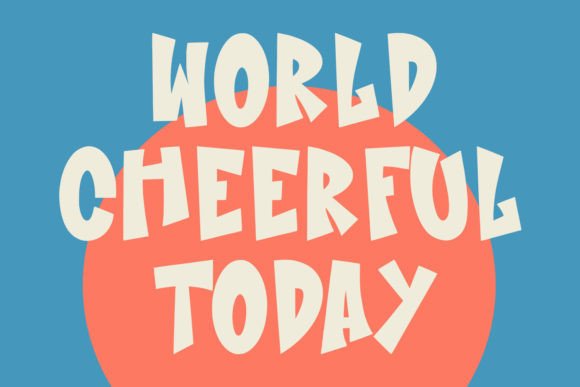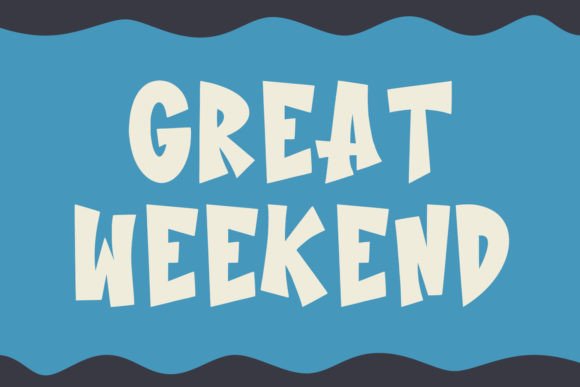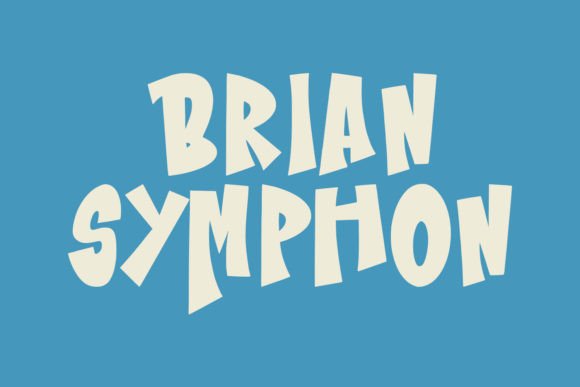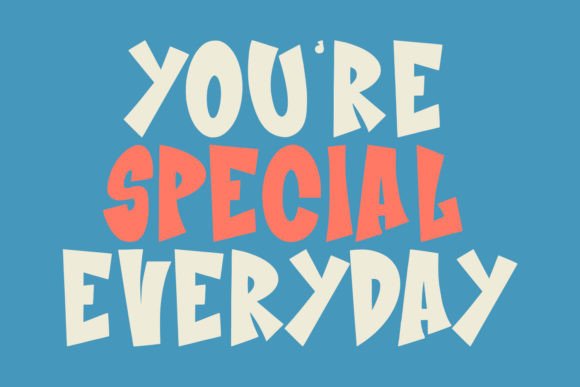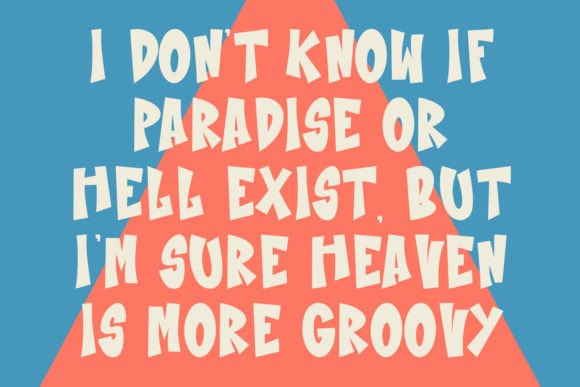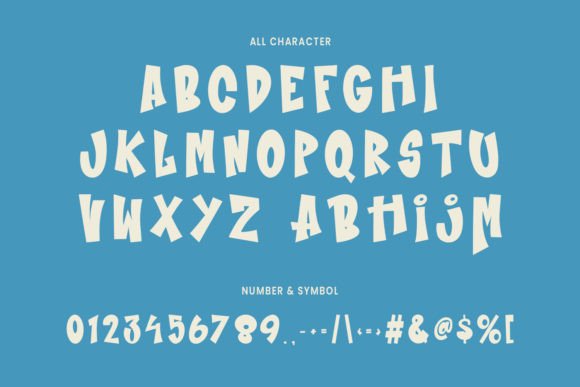
Have you ever been stuck trying to come up with the perfect font for a project, only to find yourself scrolling through page after page of options? You finally land on one that catches your eye, but it just doesn’t quite feel right. That’s where the Cluchy Font comes in – a playful display font designed to add a touch of fun and personality to your work.
This versatile font is perfect for a wide range of projects, from logo design to social media posts, movie titles, and even book titles. With its heavy stroke and fun character, the Cluchy Font is sure to make your work stand out. Plus, with support for over 100 languages, you can use it for projects that require a multilingual approach. Whether you’re a seasoned designer or just starting out, the Cluchy Font is a valuable tool to have in your arsenal.
Clutchy Font Key Features
- Font Family: Clutchy Font is a sans-serif font family designed for digital use. It comes in 6 weights (Thin, Light, Regular, Medium, Bold, and Black) and 3 widths (Compressed, Normal, and Extended).
- Character Set: The font supports a wide range of languages, including Latin, Cyrillic, and Greek alphabets, as well as many non-Latin scripts.
- Unique Characteristics: Clutchy Font features a unique blend of geometric and organic shapes, resulting in a distinctive and modern aesthetic. Its carefully crafted letterforms ensure optimal legibility and readability.
Designer Review: Clutchy Font
Overall, I’d say the Clutchy font has a lot going for it. The ✨ personality is spot on, with a quirky and playful vibe that’s sure to grab attention. The font’s use of geometric shapes and rounded edges gives it a friendly, approachable feel that’s perfect for casual projects or brands that want to appear more approachable.
- ✨ The font’s unique personality and character make it a great choice for adding some visual interest to a design.
- ✨ Clutchy is highly legible, even at smaller font sizes, making it a great choice for body text or headlines.
- ✨ The font’s geometric shape-based design makes it highly versatile and adaptable to different design styles.
However, I do think there are a few areas where Clutchy falls short. ⚠️ The font’s bold and italic styles can be a bit inconsistent, with some letters feeling a bit awkward or cramped. Additionally, the font’s limited support for certain languages may be a concern for designers working with international clients.
- ⚠️ The font’s bold and italic styles can be inconsistent and feel a bit cramped.
- ⚠️ Limited support for certain languages may be a concern for designers working with international clients.
Overall, I think Clutchy is a solid choice for designers looking for a unique and playful font. While it may have some limitations, its strengths far outweigh its weaknesses, making it a great addition to any designer’s toolkit.